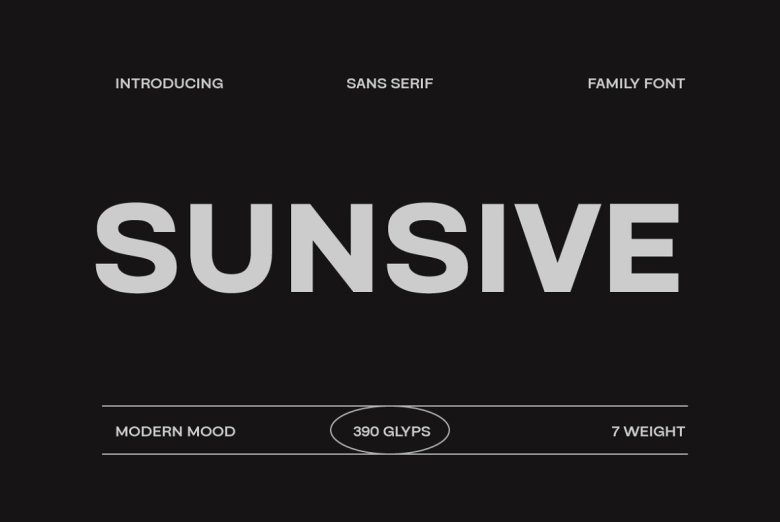
Sunsive Font
Sunsive Sans Serif Font Family is an excellent way to add modern, clean professional designs with minimalist aesthetics. Offering various styles and weights, it makes this font family suitable for headlines, web designs, body text and contemporary branding applications.
Sunsive Sans Serif Font Family also comes in Regular to Black styles that allow you to modify text style depending on your text needs – this way providing flexibility when designing modern text styles with contemporary style.
Sunsive Sans Font Family